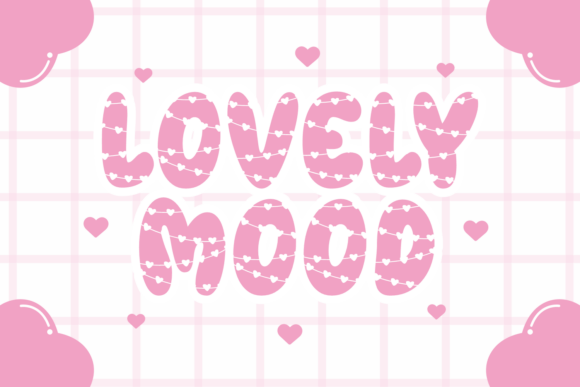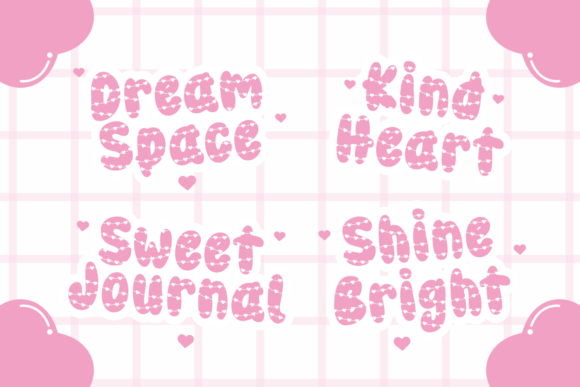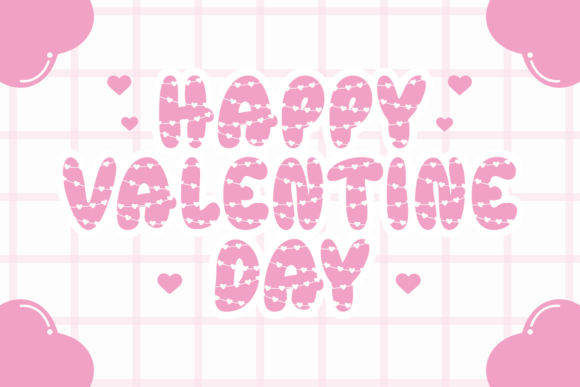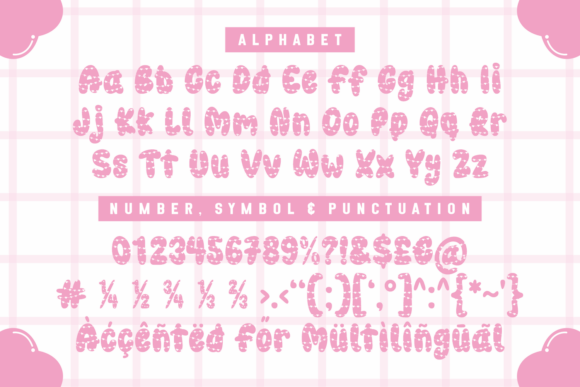
Introducing Flow Love Font: The Sweetest Way to Add Affection and Charm to Your Designs
Are you looking for a font that can add a touch of whimsy and romance to your projects? Look no further than Flow Love Font, a sweet and charming decorative display font that’s perfect for designers and crafters who want to infuse their work with affection and charm. In this article, we’ll take a closer look at the unique features of Flow Love Font and explore the many ways you can use it to create high-impact designs that capture the hearts of your audience.
The Unique Features of Flow Love Font
Flow Love Font is characterized by its thick, ultra-rounded letterforms and a unique internal pattern of delicate heart strings. This distinctive design gives the font a playful, multi-layered visual experience that’s sure to delight. The bubbly, pillowy structure of the font is specifically crafted for high-impact “cute” designs, making it an exceptional choice for a wide range of projects.
One of the standout features of Flow Love Font is its ability to add a touch of romance and whimsy to any design. The font’s delicate heart strings and rounded letterforms give it a soft, feminine feel that’s perfect for Valentine’s Day promotions, romantic social media graphics, and other projects that require a touch of affection and charm.
Flow Love Font is an incredibly versatile font that can be used for a wide range of projects, from children’s apparel and gift packaging to social media graphics and promotional materials. The font’s playful, celebratory feel makes it perfect for designers and crafters who want to create high-impact designs that capture the hearts of their audience.
Some of the many ways you can use Flow Love Font include:
- Valentine’s Day promotions: Add a touch of romance and whimsy to your Valentine’s Day designs with Flow Love Font’s delicate heart strings and rounded letterforms.
- Children’s apparel: The font’s playful, bubbly structure makes it perfect for kids’ clothing and accessories.
- Romantic social media graphics: Use Flow Love Font to create eye-catching social media graphics that capture the hearts of your followers.
- Gift packaging: Add a touch of affection and charm to your gift packaging with Flow Love Font’s unique internal pattern of delicate heart strings.
An Instantly Lovable Aesthetic
Flow Love Font provides an instantly lovable aesthetic that turns every word into a celebratory message of joy. The font’s playful, multi-layered visual experience is sure to delight, and its delicate heart strings and rounded letterforms give it a soft, feminine feel that’s perfect for a wide range of projects.
Whether you’re a designer or crafter looking to add a touch of whimsy and romance to your work, Flow Love Font is the perfect choice. With its unique features, versatility, and instantly lovable aesthetic, this font is sure to become a favorite in your design toolkit.
| Font Name | Flow Love Font |
| Author | Damai (7NTypes) |
In conclusion, Flow Love Font is a sweet and charming decorative display font that’s perfect for designers and crafters who want to infuse their work with affection and charm. With its unique features, versatility, and instantly lovable aesthetic, this font is sure to become a go-to choice for a wide range of projects. So why wait? Download Flow Love Font today and start creating high-impact designs that capture the hearts of your audience!